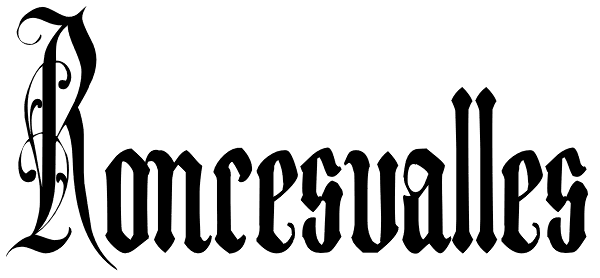
Roncesvalles
Roncesvalles is based on samples of medieval calligraphy. It features a traditional lower case character set with unique decorative capital letters featuring unusual flourishes.